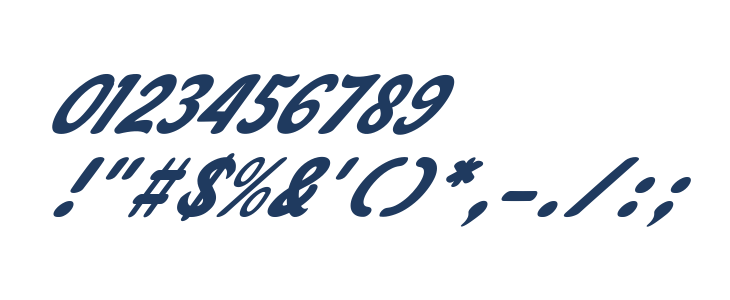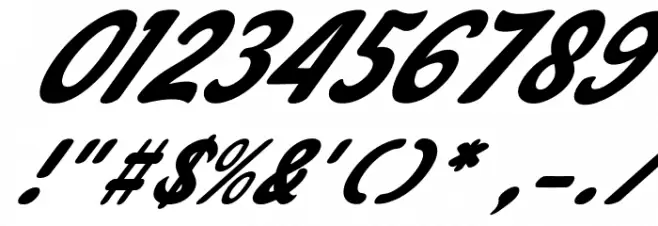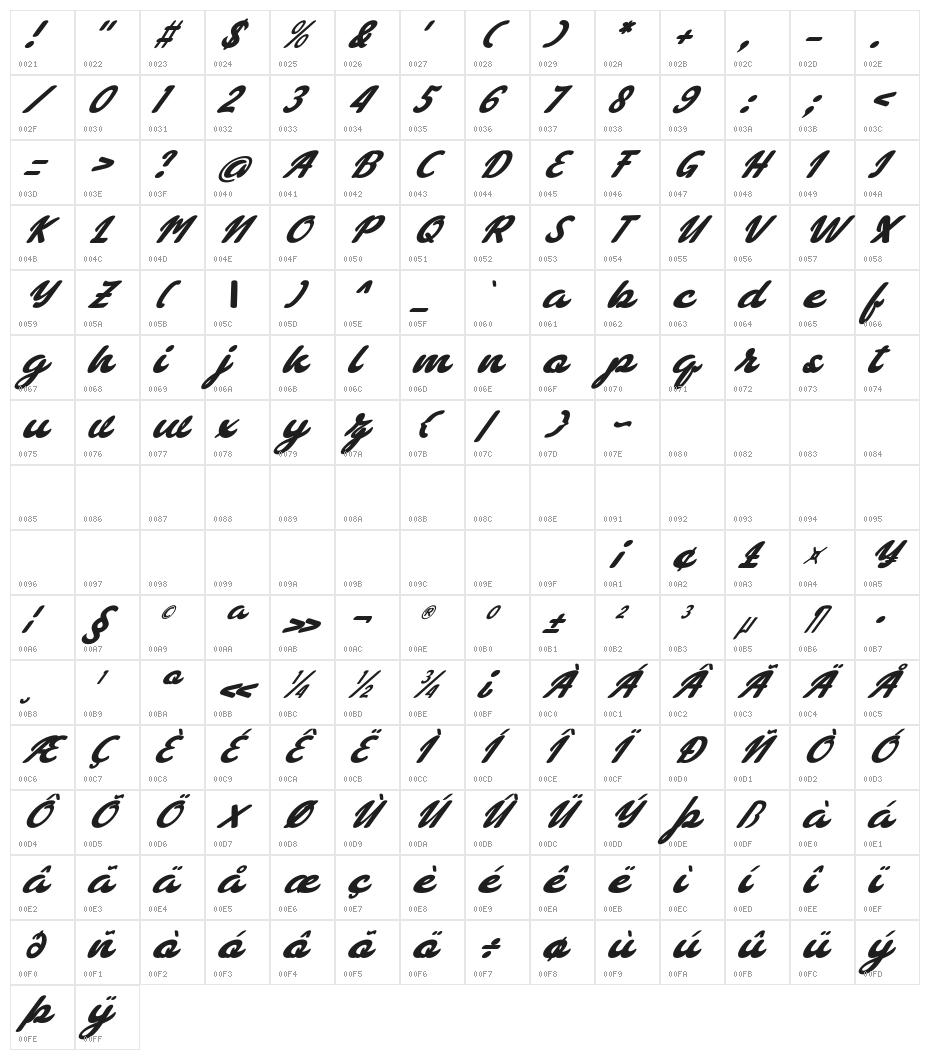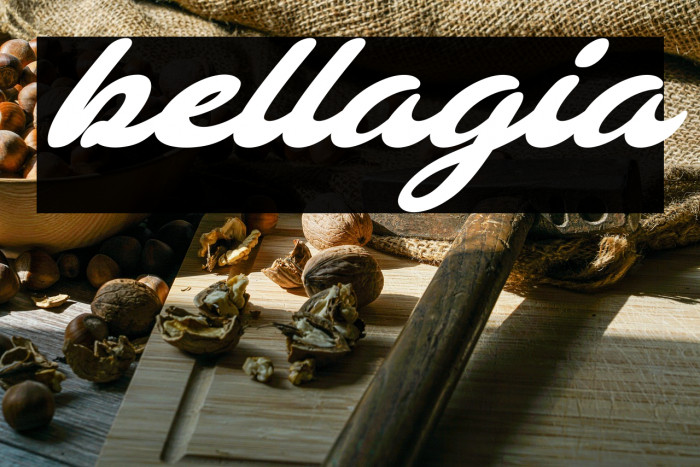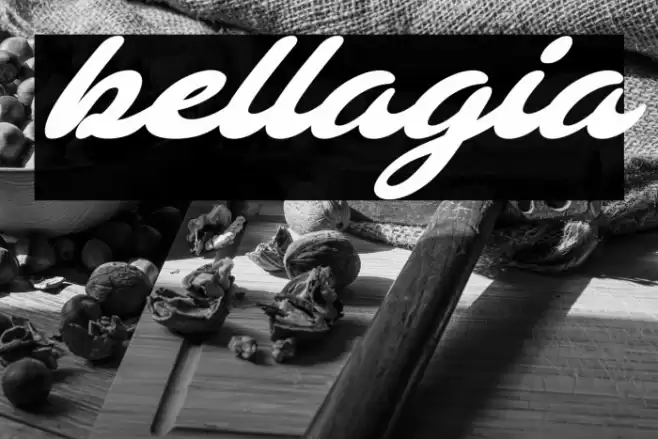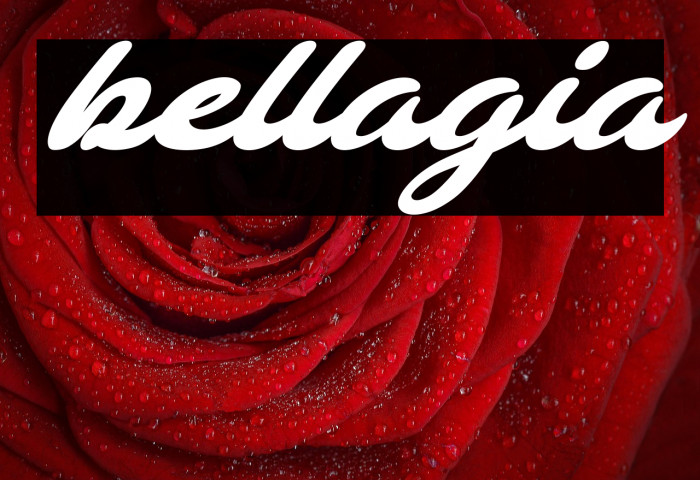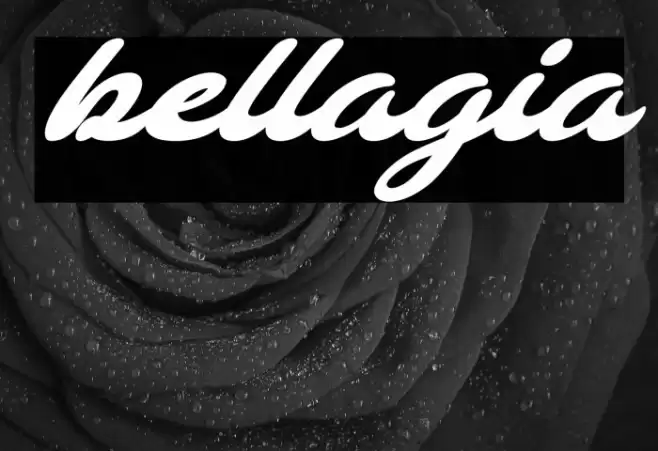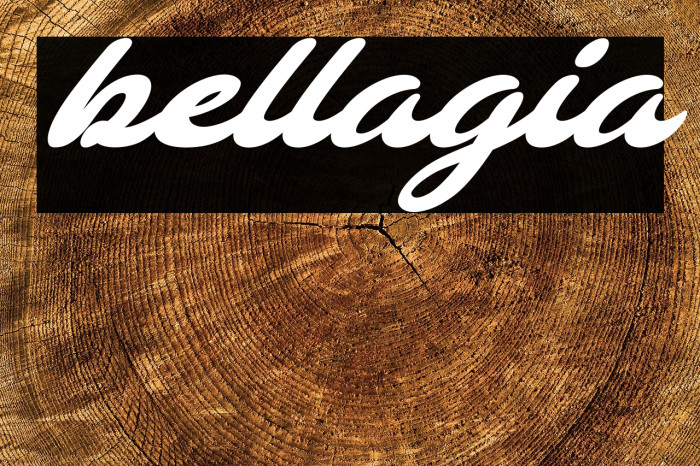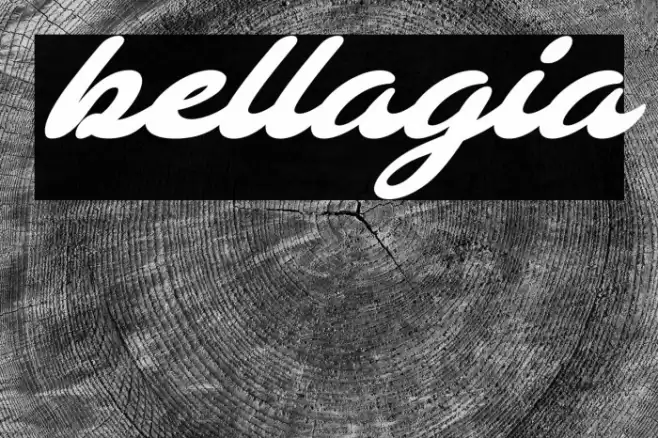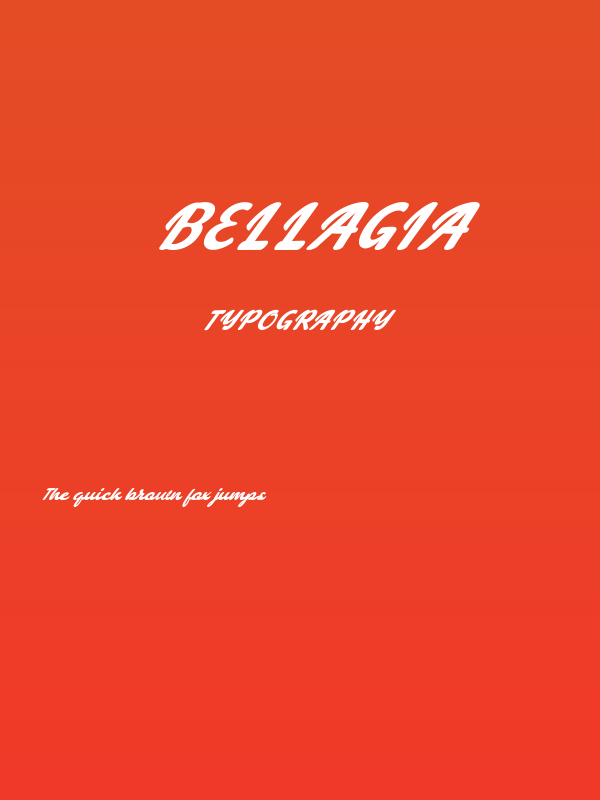
bellagia Font
bellagia Description
This font exudes a bold and energetic style, characterized by its flowing, cursive script that mimics the fluidity of handwriting. The letters are connected, creating a seamless and dynamic appearance. The strokes are thick and consistent, providing a strong visual impact. The uppercase letters stand tall with a slight slant, while the lowercase letters maintain a cohesive flow. Numbers and special characters are designed to match the overall aesthetic, ensuring uniformity across all elements. This font is perfect for making a statement, with its eye-catching and stylish design.
| Proposed Projects | Ideal for branding, invitations, logos, and any project requiring a personal touch. |